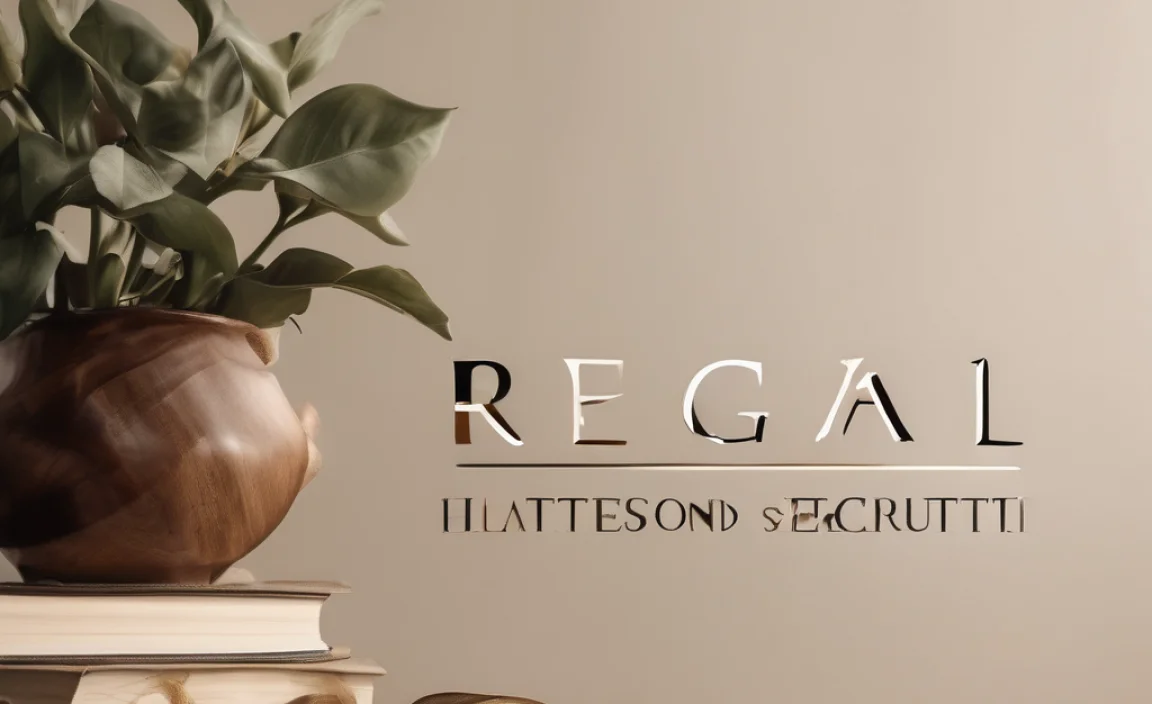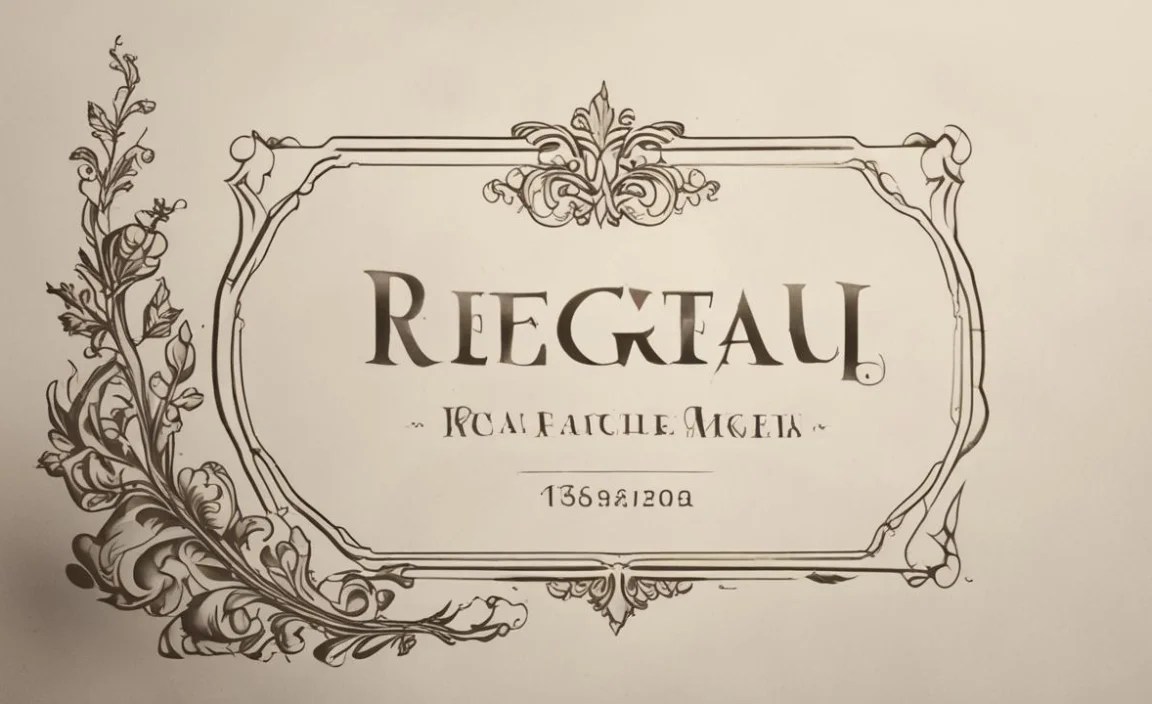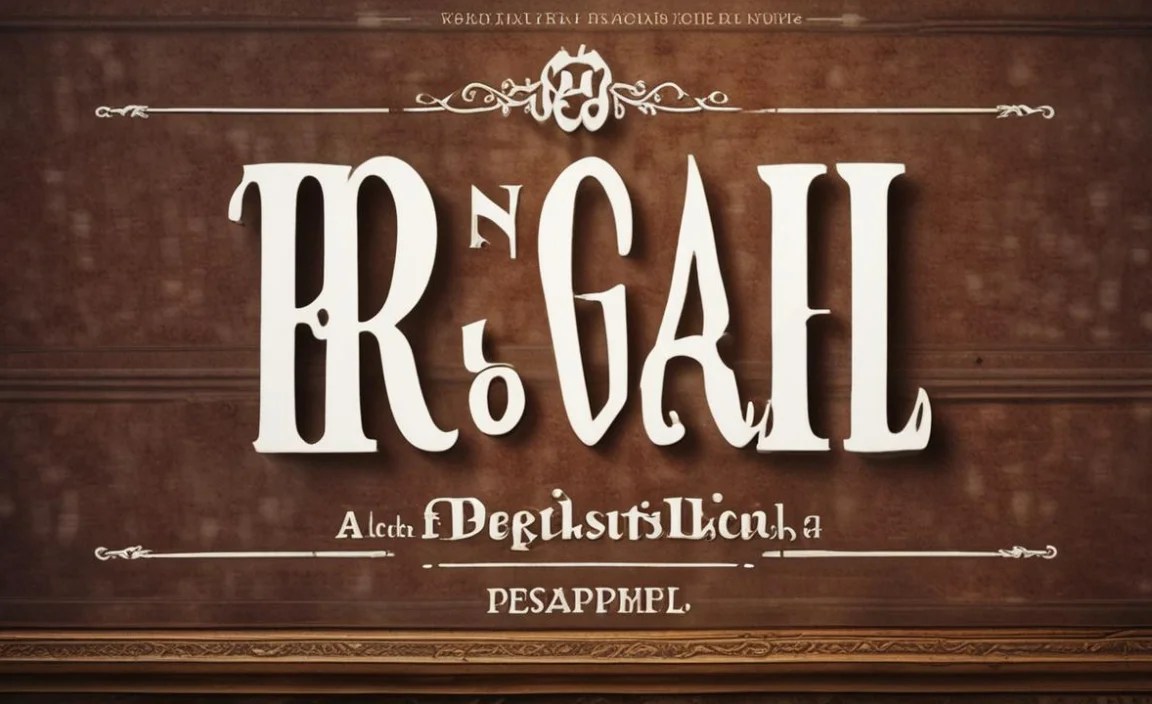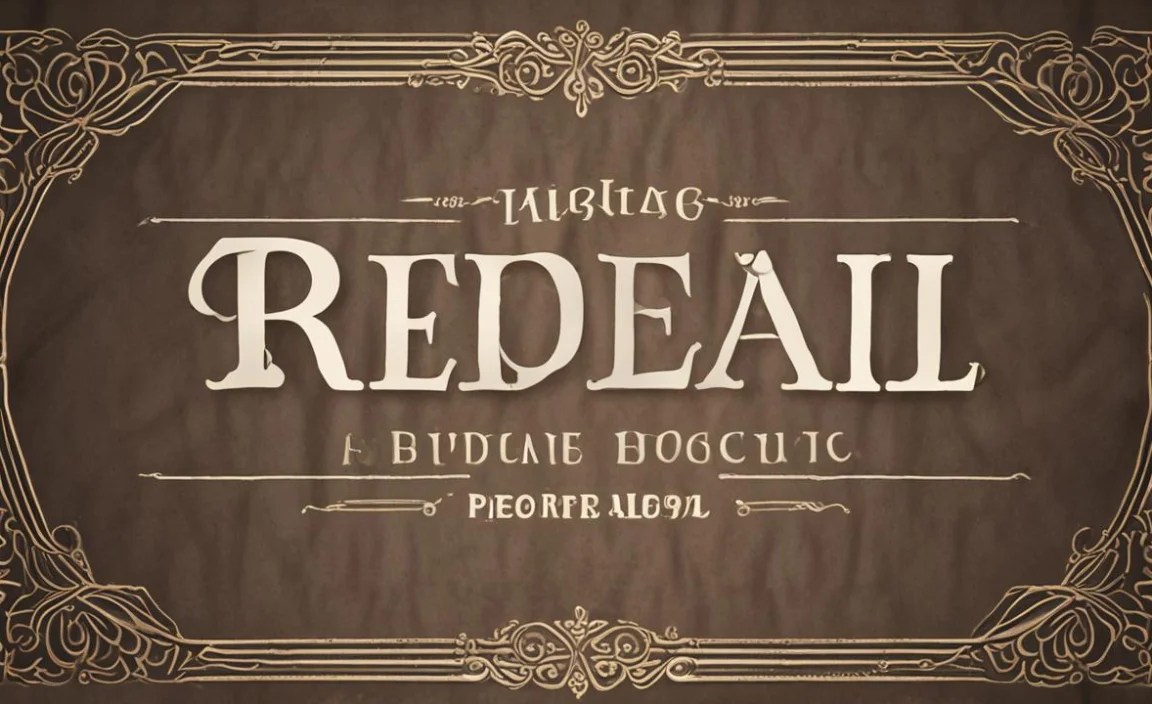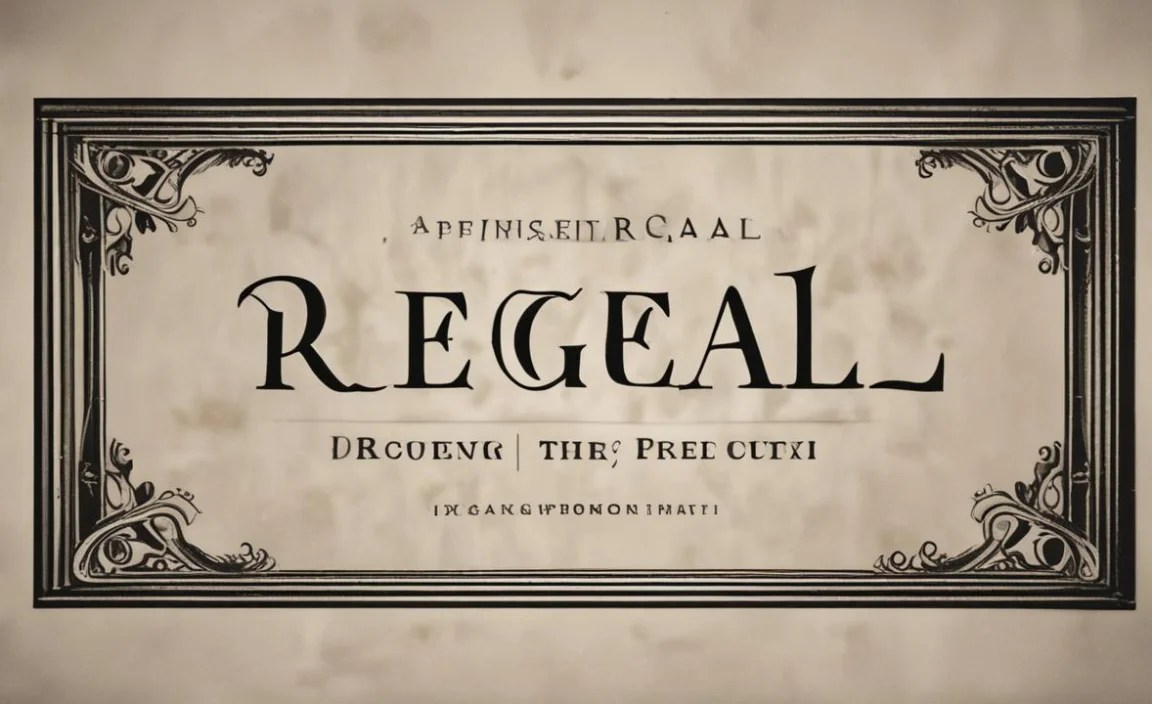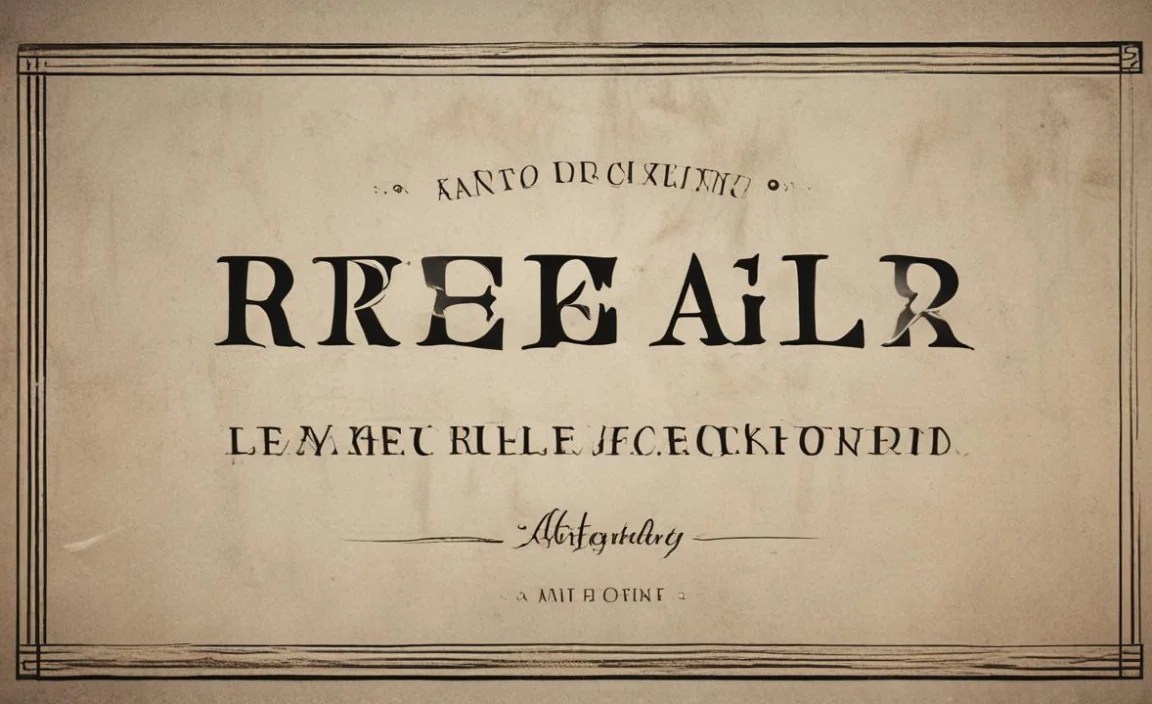
The Regal Font is a sophisticated, modern serif font that perfectly balances classic elegance and contemporary design. Drawing inspiration from vintage typographic styles, it is versatile enough for various applications, from body text to headlines. It’s stylish ligatures and alternate characters provide flexibility for designers looking to create a unique and refined aesthetic.
Types Of Regal Font (Font Family)
- Regal Regular: The standard font version, ideal for both body text and larger headings.
- Regal Italic: An elegant, slanted version perfect for emphasis or a more graceful look.
- Regal Bold: Adds strength and impact, and is great for headlines and logos.
Applications of Regal Font
The Regal Font is incredibly versatile, suitable for a wide range of design needs:
- Luxury Branding: Ideal for high-end branding projects, adding sophistication and elegance to your designs.
- Invitations and Greeting Cards: Perfect for creating stylish invitations and decorative greeting cards for weddings, events, and special occasions.
- Magazine and Editorial Design: Excellent for fashion, lifestyle, and luxury magazines where both style and readability are crucial.
- Logo Design: A go-to font for logos requiring refinement and modern appeal.
Regal Font in Use
- Branding Projects: Often used in luxury branding to evoke a sense of refinement and high-class appeal.
- Web and Graphic Design: Perfect for use on websites and social media graphics, particularly those focused on elegance or sophistication.
- Marketing Materials: Frequently applied in brochures, flyers, and posters for products or services targeting high-end consumers.
Features of Regal Font
- Elegant and Classic: Regal’s serif style exudes sophistication, making it a go-to choice for formal and luxurious designs.
- Ligatures and Stylistic Alternates: The font includes several ligatures and alternate glyphs, allowing creative and unique typography in your projects.
- Versatile Usage: Whether it’s for body text, headlines, or logos, Regal adapts seamlessly across various platforms and mediums.
The Regal Font is a classic, elegant serif font combining traditional charm and modern sophistication. It is a versatile tool for designers, offering various applications, from luxury branding to wedding invitations. Its stylized ligatures and alternate characters allow for creative flexibility while maintaining a refined appearance. Whether you’re working on a branding project or a vintage-style design, Regal will bring a touch of elegance to any creation.
What Makes Regal Font A Good Choice For Branding?
Regal Font’s combination of classic elegance and modern design makes it ideal for high-end branding, logos, and luxury marketing materials.
What Types Of Projects Can Regal Font Be Used For?
Regal Font is suitable for a wide range of projects, including branding, logo design, greeting cards, website design, and other graphic design applications.
Does Regal Font Include Both Uppercase And Lowercase Letters?
Yes, Regal Font includes both uppercase and lowercase letters, along with stylistic alternates and ligatures, allowing for a customizable design approach.
Can Regal Font Be Used For Web Design?
Yes, Regal Font works beautifully for web design, offering readability and elegance across various screen sizes.
What Are The Ligatures In Regal Font?
Regal Font includes ligatures and stylistic alternates, which allow designers to create unique, seamless typography for their projects.
How Does Regal Font Compare To Other Serif Fonts?
Regal Font stands out due to its elegant curves, high-end feel, and modern versatility, making it a more expressive choice compared to other more traditional serif fonts.
What Other Fonts Pair Well With Regal Font?
Regal Font pairs well with modern sans-serif fonts for body text, such as Helvetica or Arial, and other classic serifs for a balanced, sophisticated look.